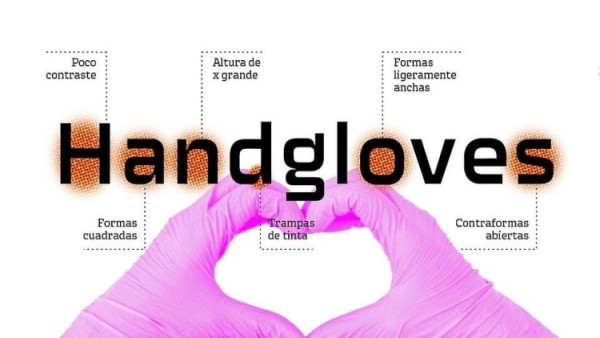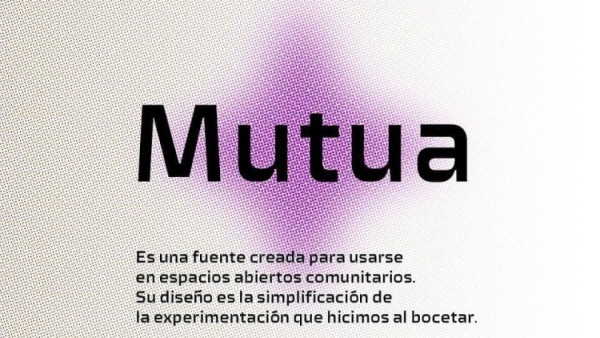
Mutua Font
Mutua Font is a wayfinding sans serif typeface created to be used in community open spaces, such as parks, fields, streets, etc. It is intended for the population to label through cuts or with stencils the spaces where they need to communicate specific instructions (short texts).